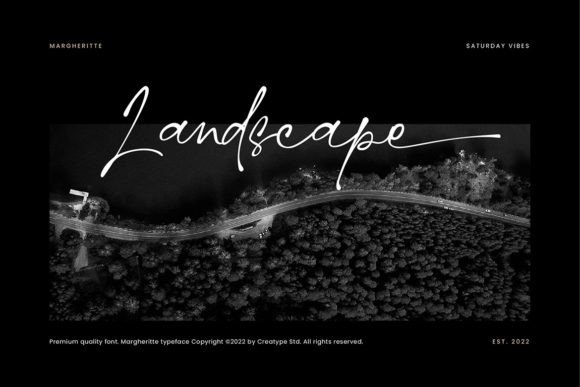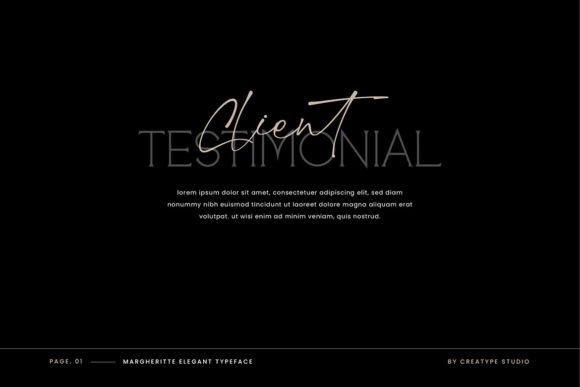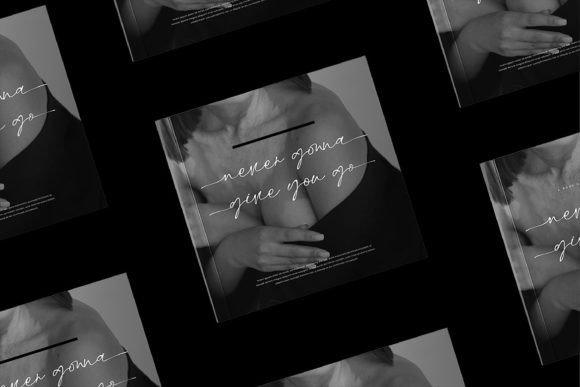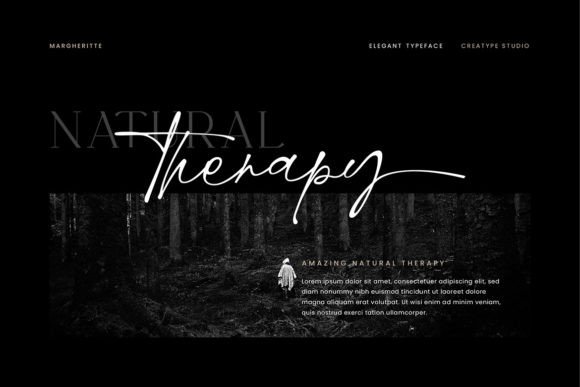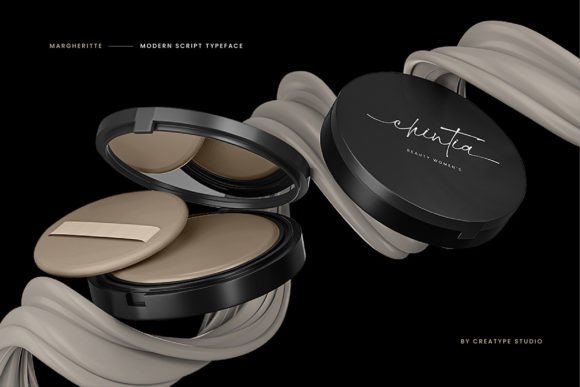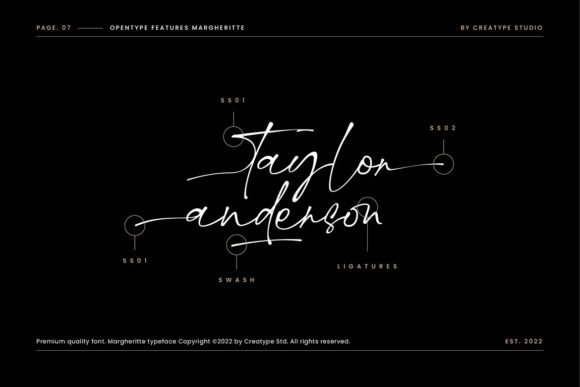
Introduction to Margheritte Font
Have you ever stared at a blank page, wondering how to bring your creative vision to life? For many designers, this is a familiar feeling. But what if you had the perfect tool to help you break through that creative block? Enter the Margheritte Font, a stunning script font that’s sure to elevate any project.
With its intricate details and delicate lines, the Margheritte Font is a high-quality design resource that’s perfect for any creative project. Whether you’re working on a logo, a wedding invitation, or a marketing campaign, this font has the potential to add a touch of elegance and sophistication to your design.
Key Features of Margheritte Font
- Unique characteristics include elegant script lines and subtle flourishes, perfect for adding a touch of sophistication to any design
Honest Review: Margheritte Font
One of the things that stands out about the Margheritte Font is its ability to seamlessly integrate with transparent backgrounds. It’s incredibly versatile and can be used for a wide range of creative projects, from logos to branding materials.
- ⚠️ Limited customization options
- ⚠️ Not suitable for very large or complex projects
Overall, I’m thoroughly impressed with the Margheritte Font. It’s a solid design resource that’s perfect for designers who need a high-quality, versatile font for their creative projects. If you’re looking for a reliable font that’s easy to use and produces great results, I highly recommend giving it a try.
The Margheritte Font is commonly used in creative projects that require a high-quality, elegant font. Some common use cases include:
- Typography